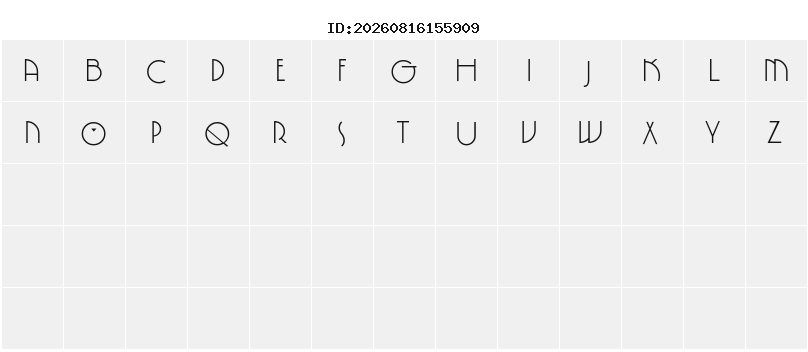
SpringGarden-Pl Preview
About SpringGarden-Pl.ttf
SpringGarden-Pl.ttf is a modern, elegant sans-serif font designed for ultimate readability and visual harmony. Perfect for branding, headlines, web design, and print materials.